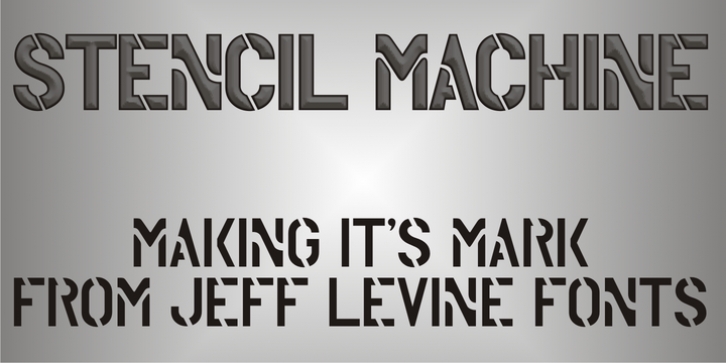
Stencil Machine JNL was designed by Jeff Levine and published by Jeff Levine. Stencil Machine JNL contains 1 style.
Stencil Machine JNL replicates the lettering of a stencil cutting machine. The stencils produced on such machines were primarily used for carton identification and shipping.